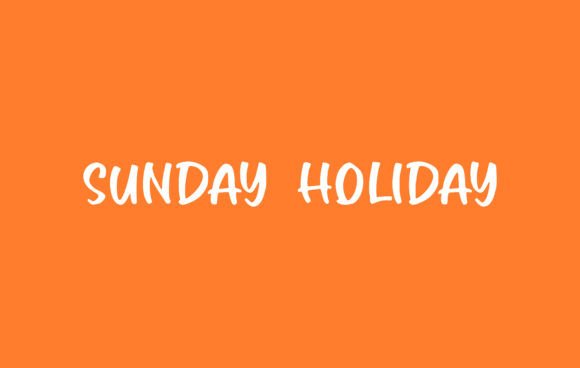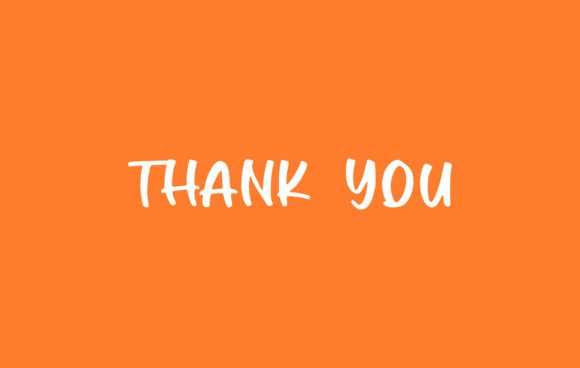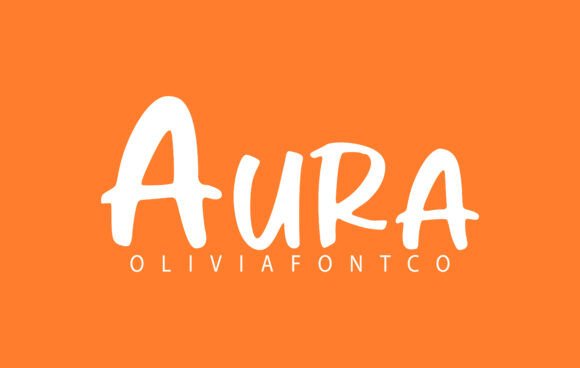
Aura Font: Elevate Your Designs with a Romantic Handwritten Touch
In the world of typography, a well-crafted font can make all the difference in bringing your creative ideas to life. If you’re a designer or crafter looking for a unique and authentic handwritten font with a romantic touch, look no further than Aura Font. This beautifully designed font is poised to become a true favorite in your collection, offering a versatile and elegant solution for a wide range of design projects.
The Charm of Aura Font
Aura Font boasts a distinctive, handwritten style that exudes warmth and sophistication. Its authentic, cursive script is expertly crafted to convey a sense of romance and whimsy, making it perfect for designs that require a touch of elegance and personality. Whether you’re working on a wedding invitation, social media post, or magazine headline, Aura Font is sure to add a dash of charm and character to your project.
Legibility and Versatility
One of the standout features of Aura Font is its exceptional legibility. This font is designed to be clear and easy to read, making it suitable for use as both title and body text. Its versatility is unmatched, allowing you to use it across a wide range of design applications, from branding and advertising to cards and invitations.
Design Applications for Aura Font
Aura Font’s flexibility and charm make it an excellent choice for various design projects, including:
- Magazine Headlines: Add a touch of sophistication and glamour to your magazine covers with Aura Font’s elegant script.
- Social Media: Stand out on social media platforms with Aura Font’s unique and eye-catching style, perfect for creating engaging posts and stories.
- Branding: Establish a strong brand identity with Aura Font’s distinctive and memorable script, ideal for logos, business cards, and letterheads.
- Wedding Invitations: Make your wedding invitations truly special with Aura Font’s romantic and whimsical touch.
- Cards: Create beautiful and heartfelt cards for special occasions, such as birthdays, anniversaries, and holidays.
Why Choose Aura Font?
With so many fonts available, why choose Aura Font for your design projects? Here are just a few compelling reasons:
- Unique Style: Aura Font offers a distinctive, handwritten style that sets it apart from more traditional fonts.
- Ease of Use: This font is incredibly easy to use, with a simple and intuitive design that makes it perfect for designers of all skill levels.
- High-Quality Design: Aura Font is expertly crafted with attention to detail, ensuring a high-quality finish that will elevate your designs.
In conclusion, Aura Font is a beautiful, authentic handwritten font with a romantic touch that’s sure to become a staple in your design collection. Its unique style, exceptional legibility, and versatility make it an excellent choice for a wide range of design projects. Whether you’re a designer, crafter, or DIY enthusiast, Aura Font is the perfect tool to help you bring your creative ideas to life. So why wait? Discover the charm of Aura Font today and take your designs to new heights!